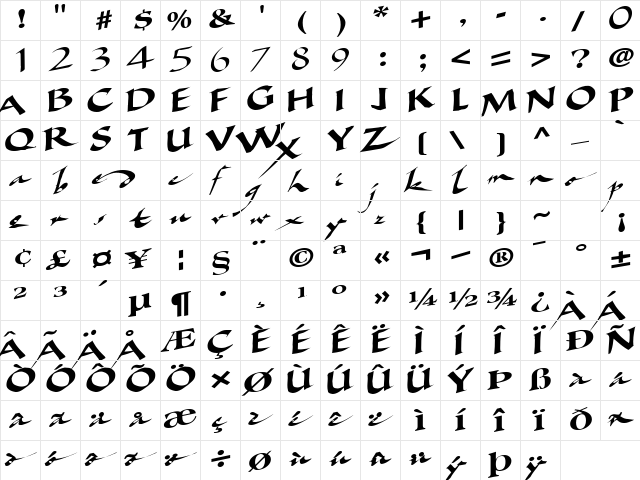
Ancient Regular
Design Context for Ancient Typeface
Ancient is a composed and adaptable typeface that performs quietly and consistently across a wide range of design contexts.